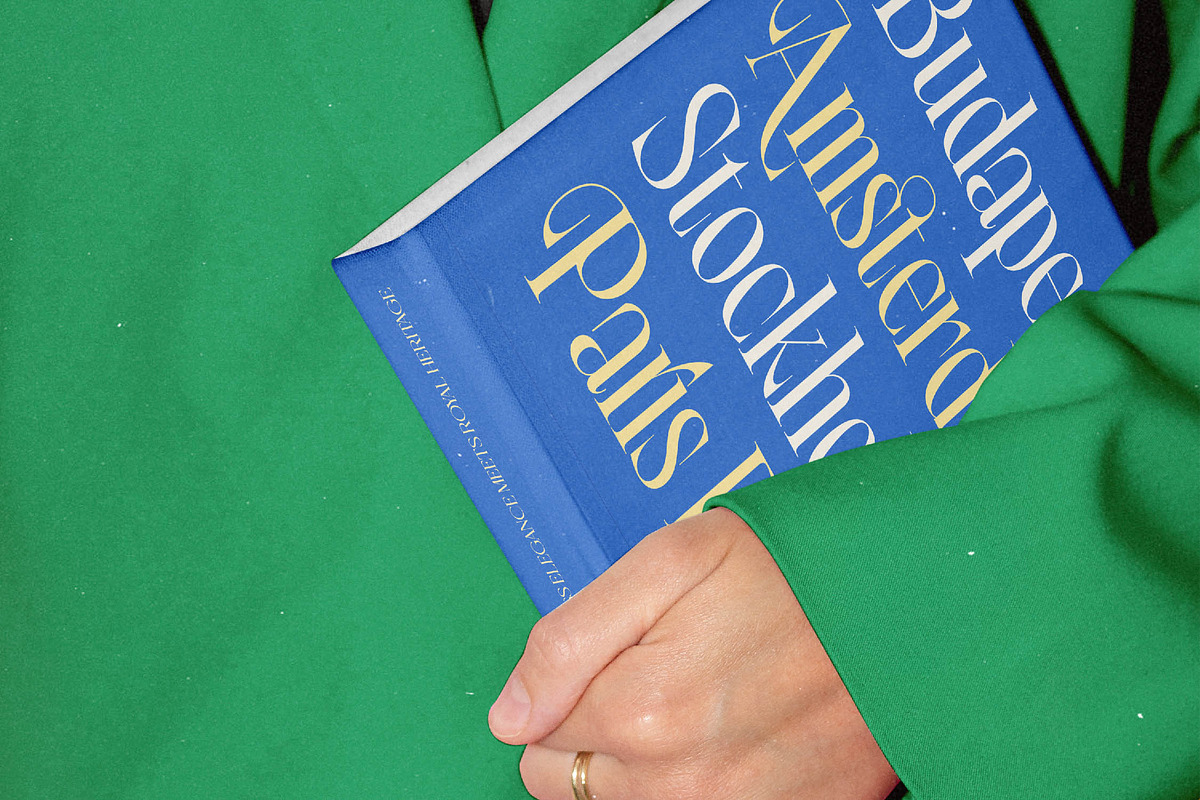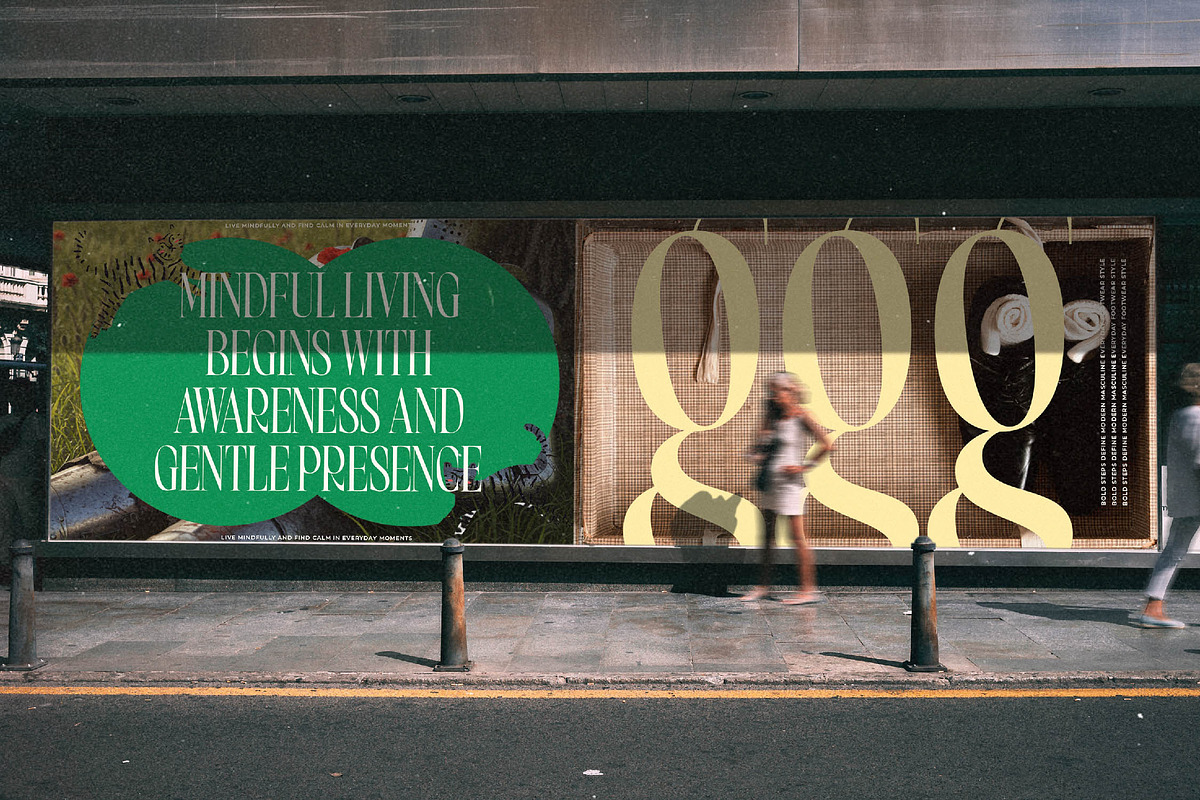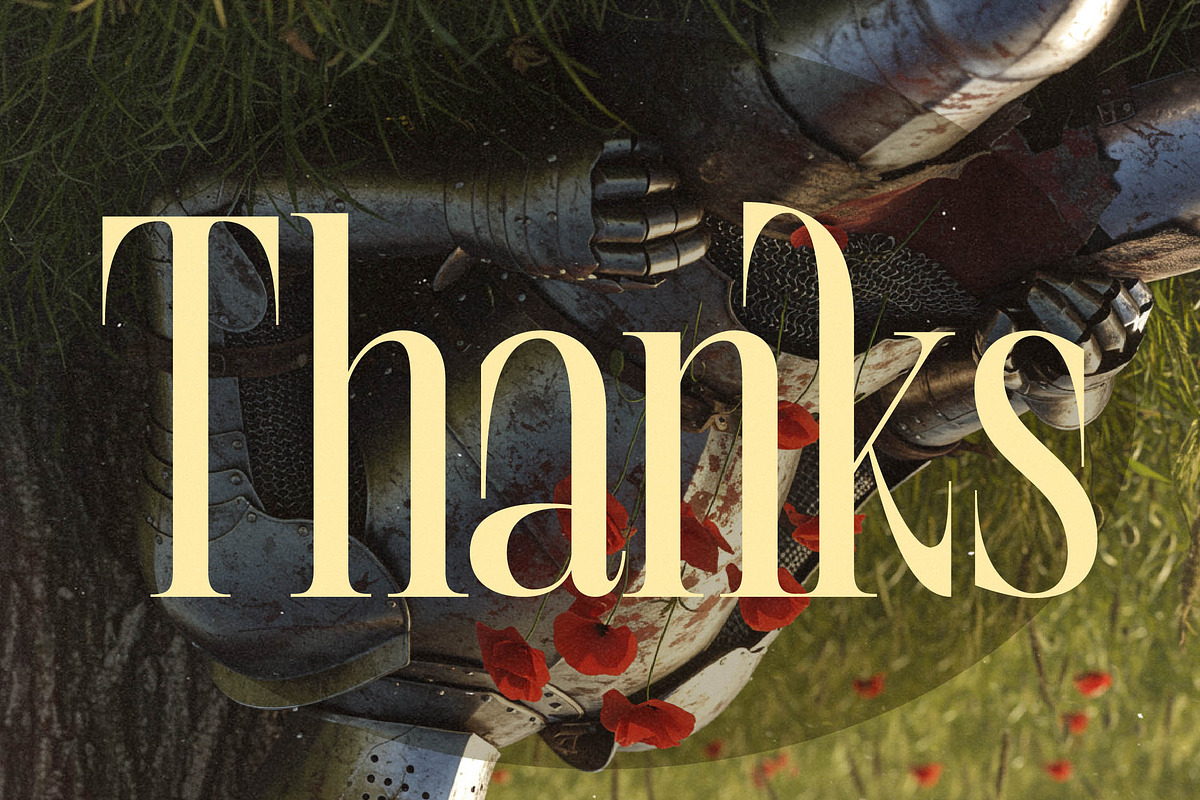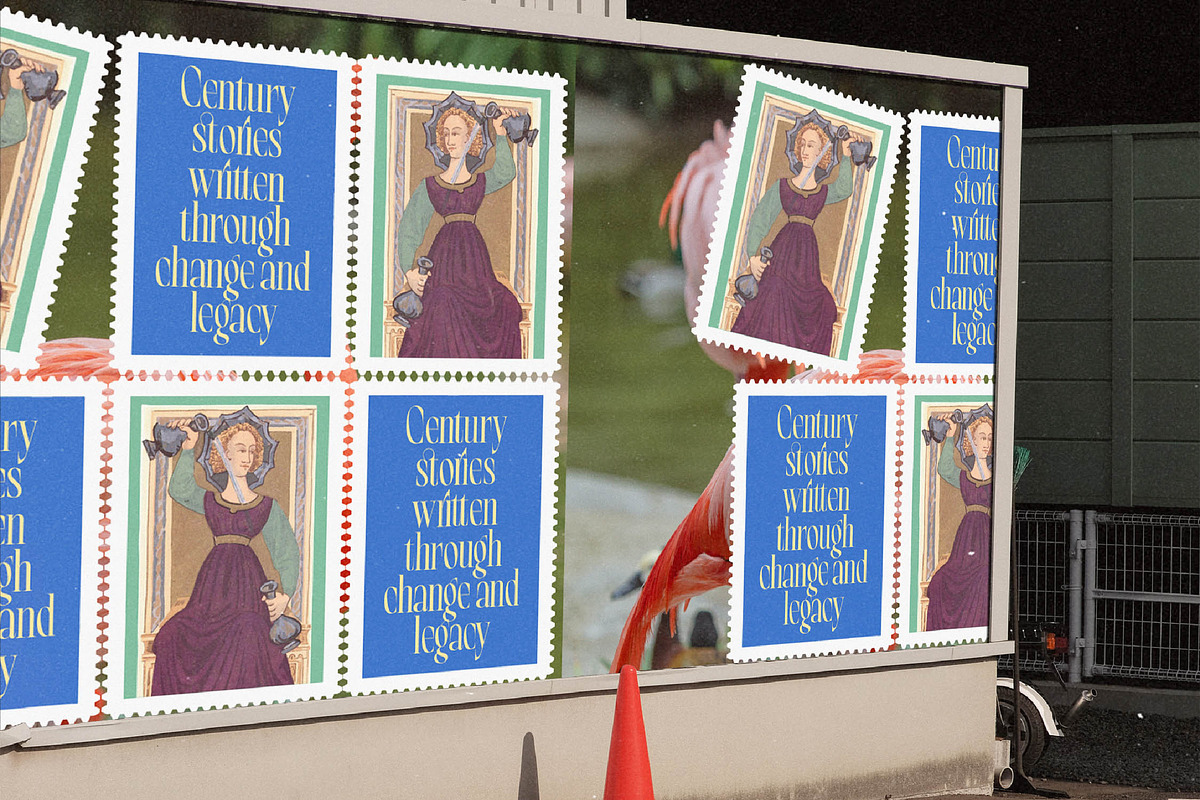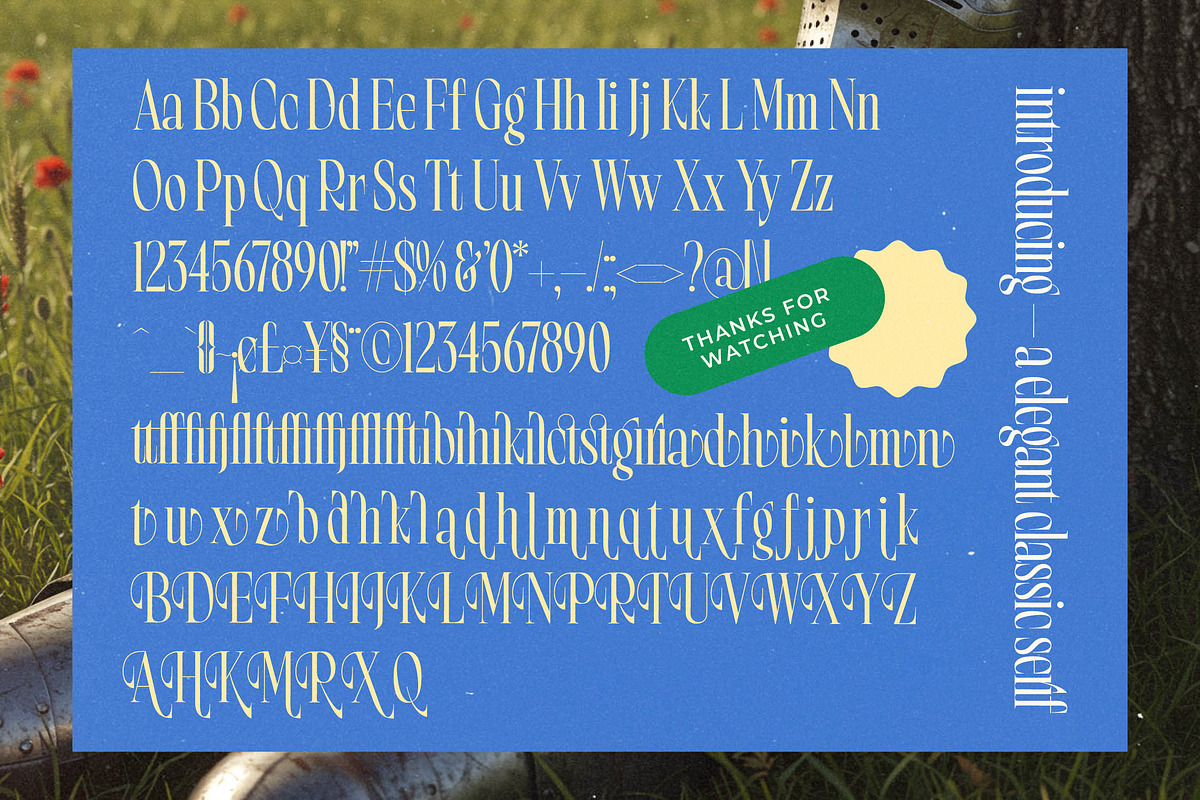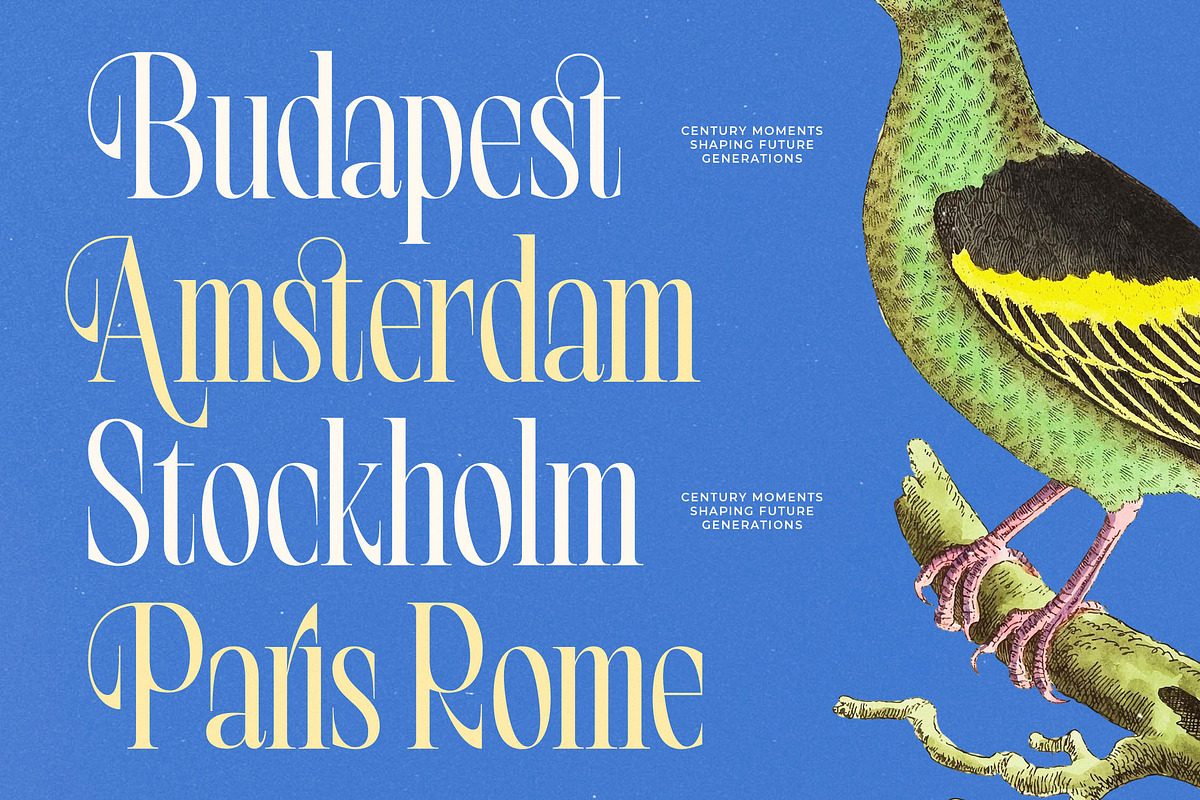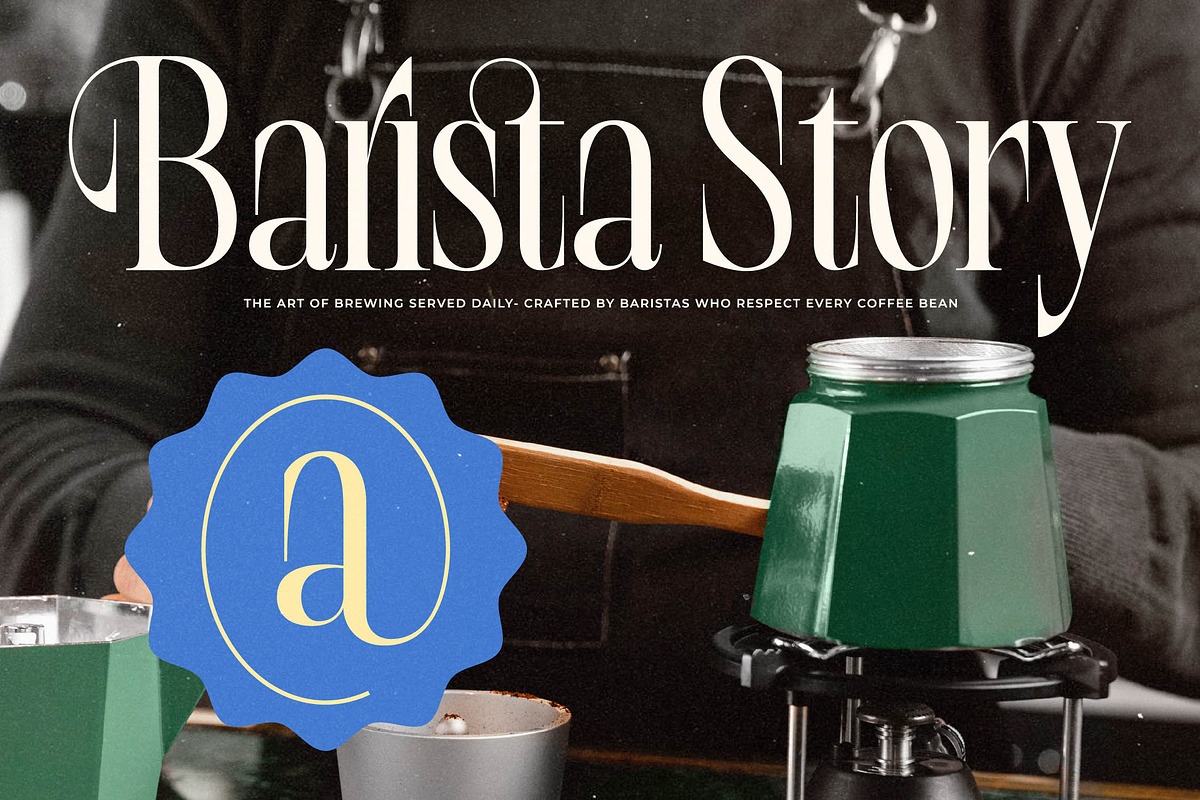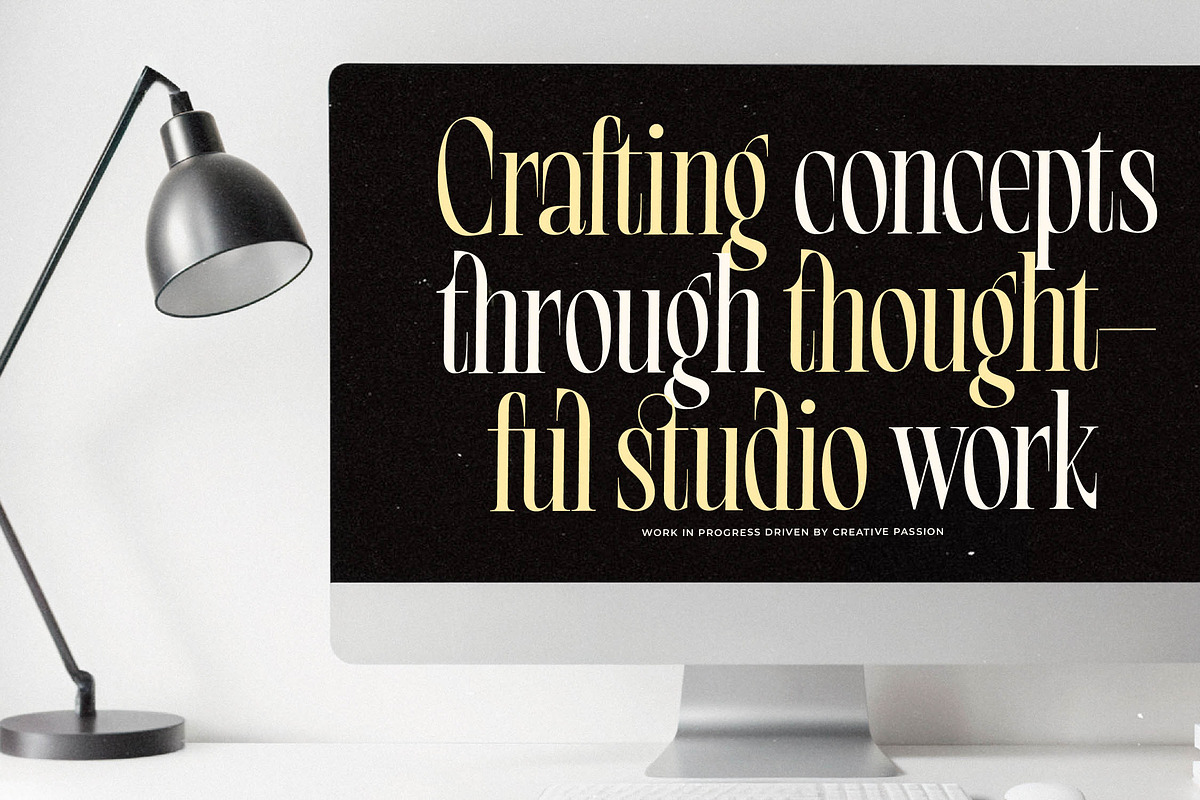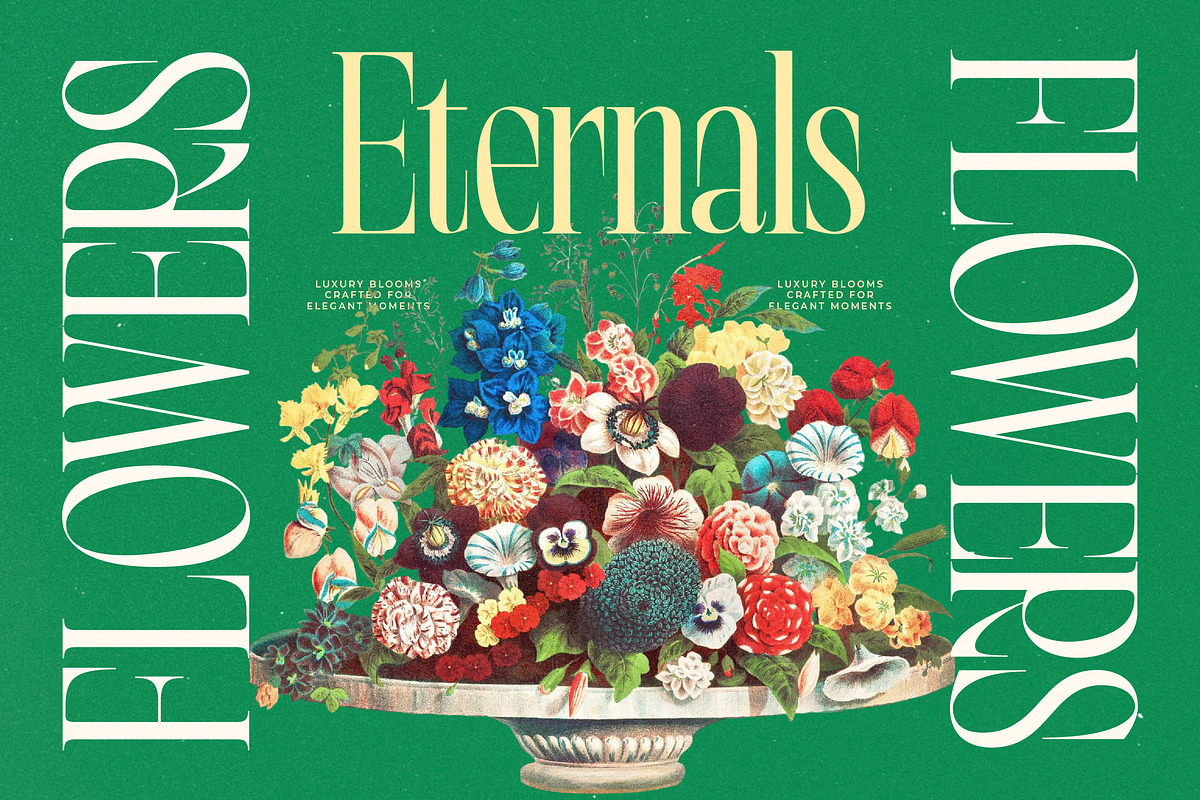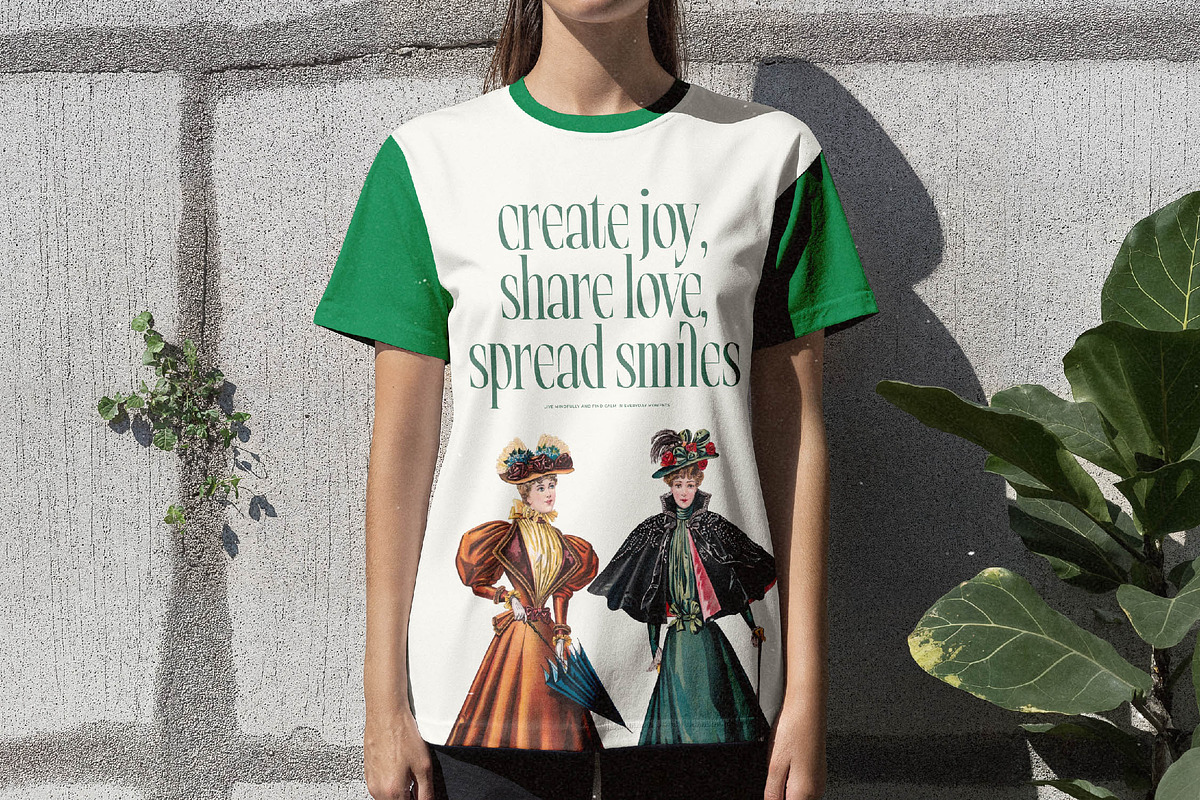
Bright Renew Modern Serif Display
Step into a world of refined elegance with Bright Renew, a typeface designed to breathe new life into your most sophisticated creative projects. This font captures the essence of timeless beauty, offering a perfect balance between classic charm and contemporary flair.
Drawing inspiration from sun-drenched Mediterranean landscapes and the quiet grandeur of coastal palaces, this typeface evokes a sense of serene luxury. Its flowing curves and sharp serifs mirror the delicate contrast between natural organic forms and architectural precision.
Designed for maximum impact, this modern serif display typeface delivers a sense of luxury typography through its high-contrast serif strokes. It serves as a powerful editorial font that ensures your headlines command attention while maintaining a high level of branding impact.
Perfectly aligned with the current modern serif trend, this typeface meets the demand for editorial display fonts that feel both nostalgic and forward-thinking. It embraces the shift toward character-driven typography by providing unique ligatures that make every word feel like a custom piece of art.
Whether you are crafting a high-end logo design or developing a comprehensive branding identity, this font excels in editorial layouts and luxury packaging. It is equally at home in wedding invitations and high-fashion lookbooks, providing a touch of class to every medium.
Each set includes over 435 glyphs, featuring 70 unique ligatures and 33 stylish alternates to expand your creative range. With extensive multilingual support and a wide array of international characters, it ensures your message reaches a global audience without losing its swashes and decorative charm.
Ligatures and Alternative Style Stylistic Set